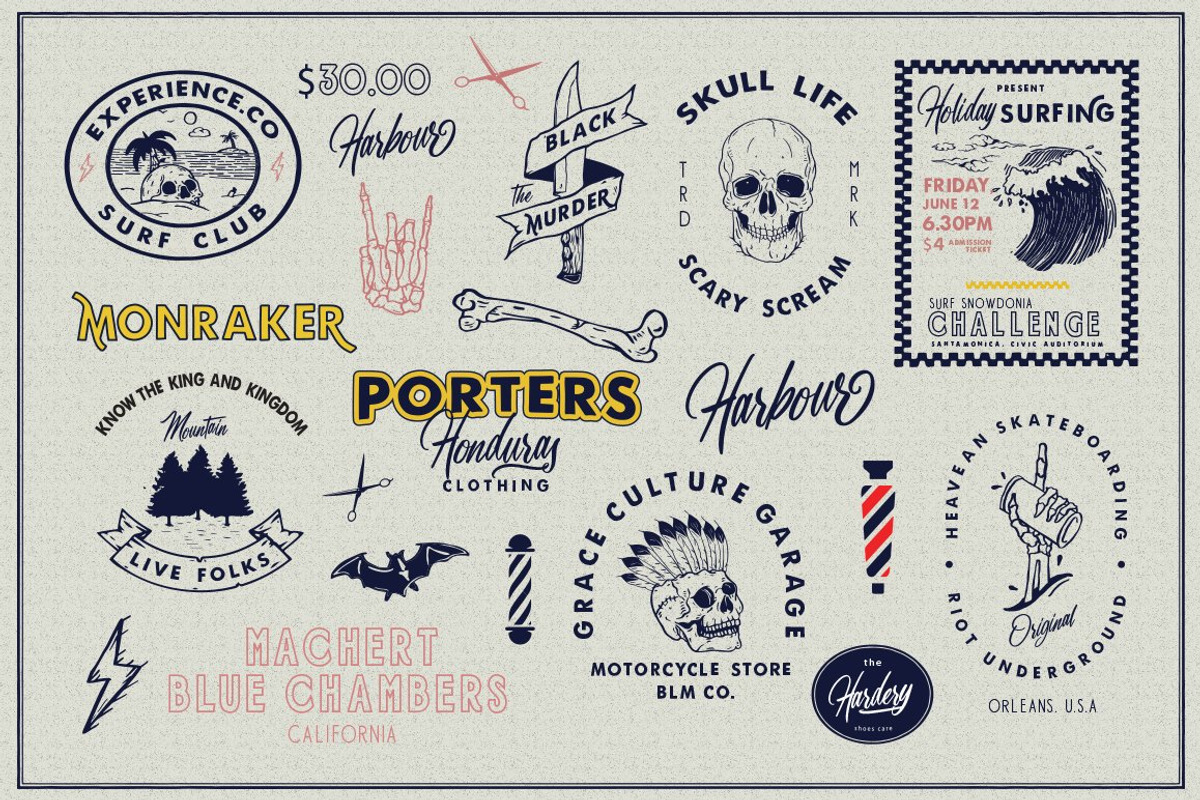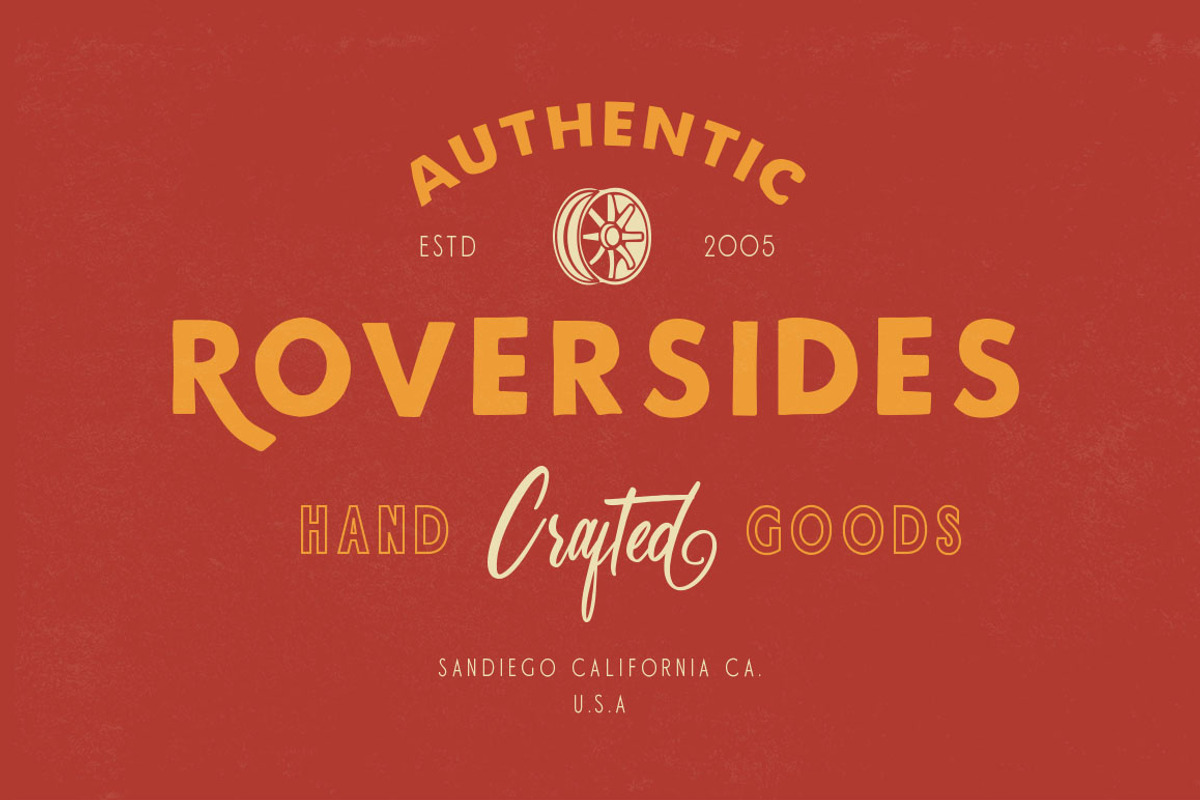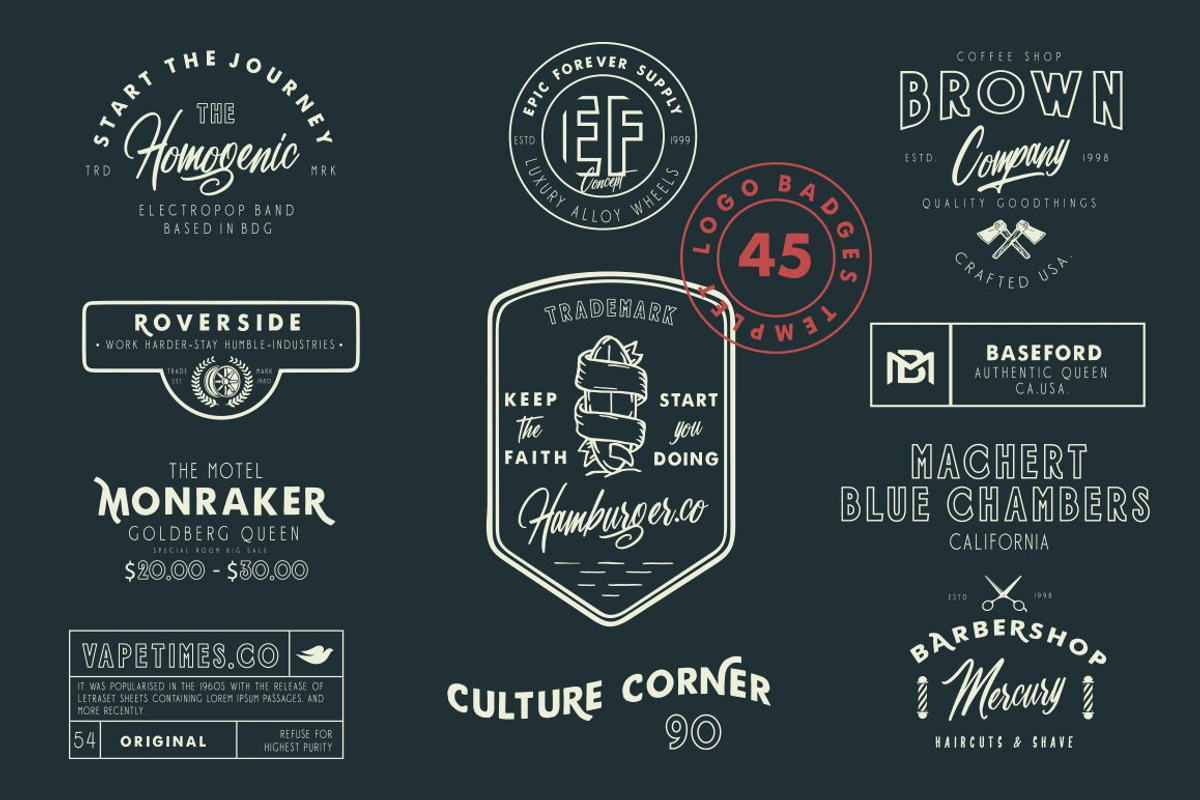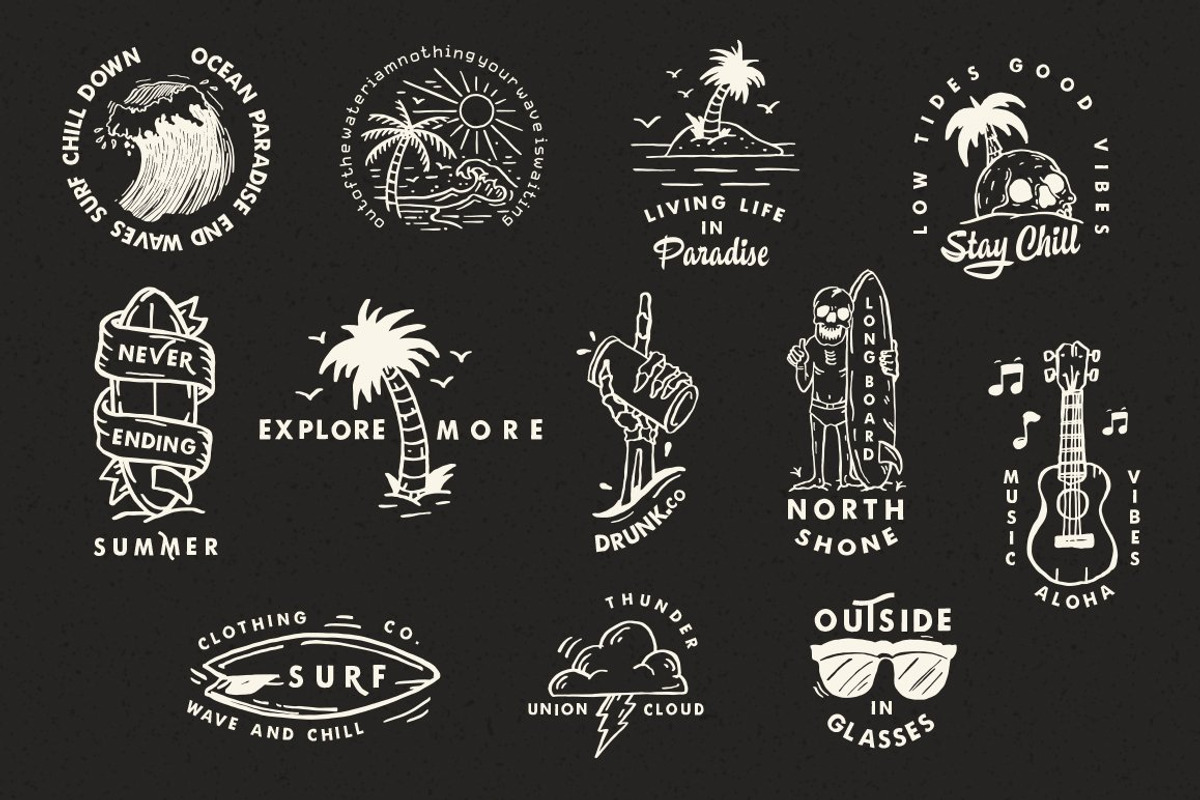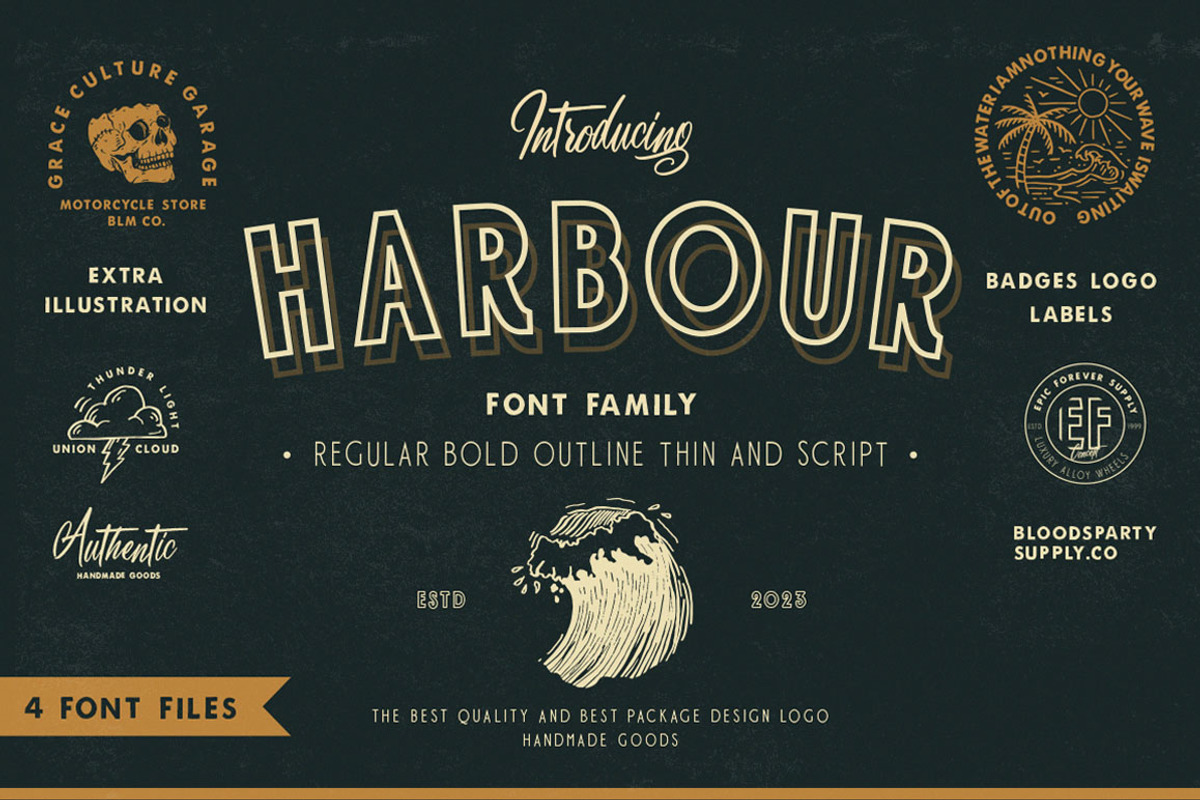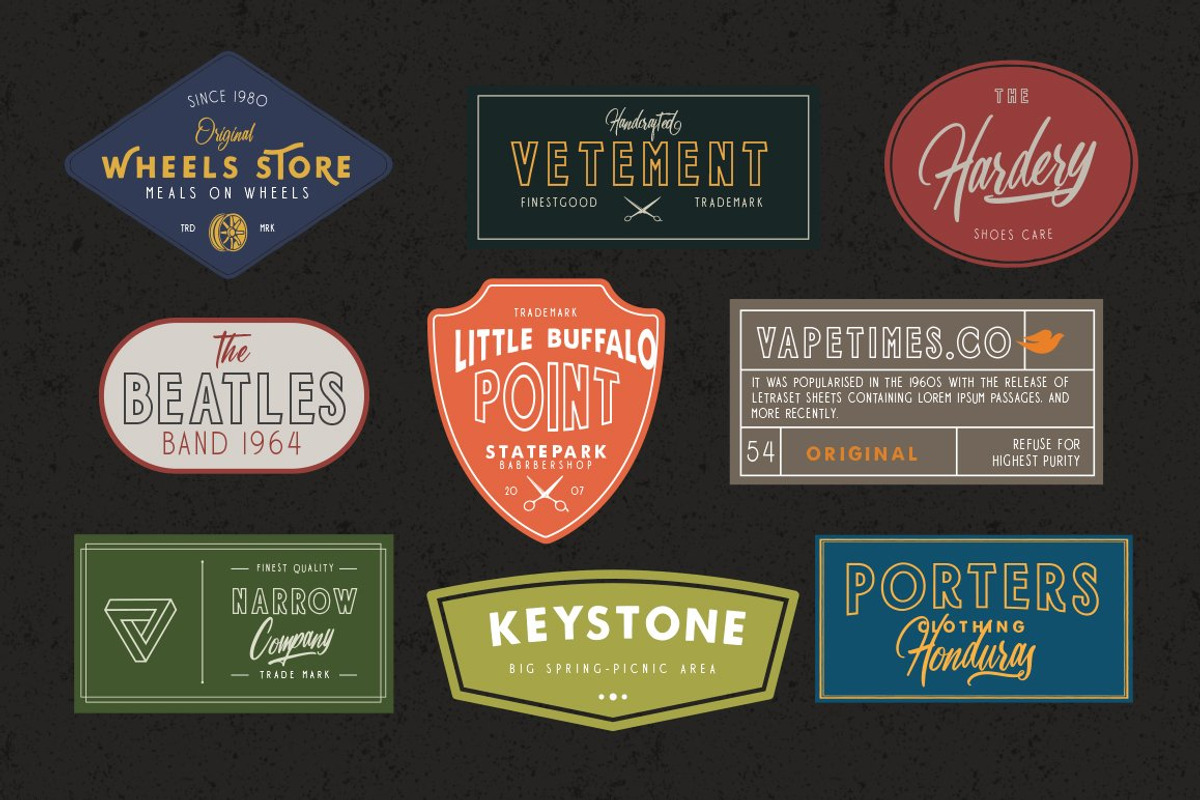
Harbour Typeface Badges Logo
Proudly presents Harbour our latest font family typeface with Script, sans Serif and outline sans serif. The script also comes with Ligatures and Stylistic Alternates that will make the signature font more real.Harbour comes with uppercase, lowercase, numerals, punctuations and so many variations on each characters include opentype alternates, common ligatures and also editable badges, illustration to customise your designs. Harbour is very best choice fonts for : Wedding Invitation, quotes, Posters, Apparel design, Logos, Print Ads, Digital Ads, Promotion Product etc.
- Character set A-Z with special uppercase letters
- Stylistic Alternates And Ligatures
- Multilanguages